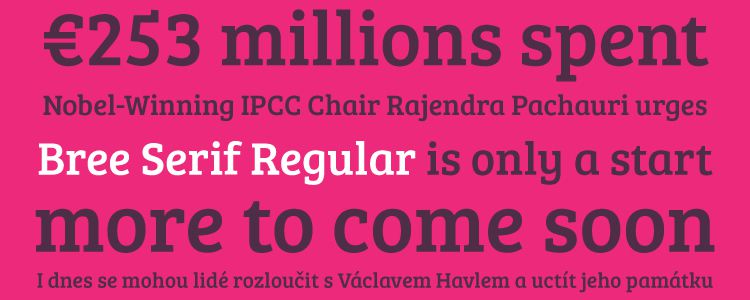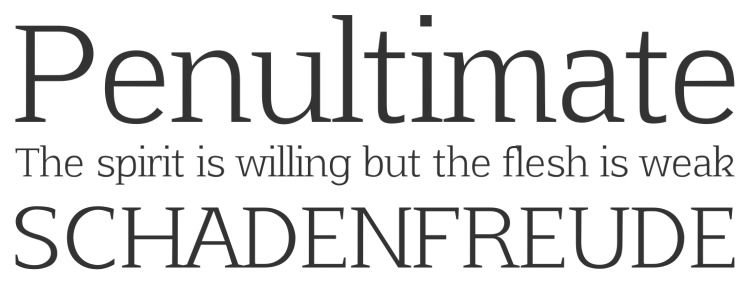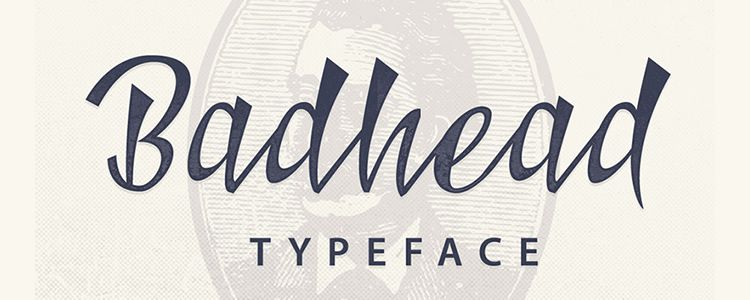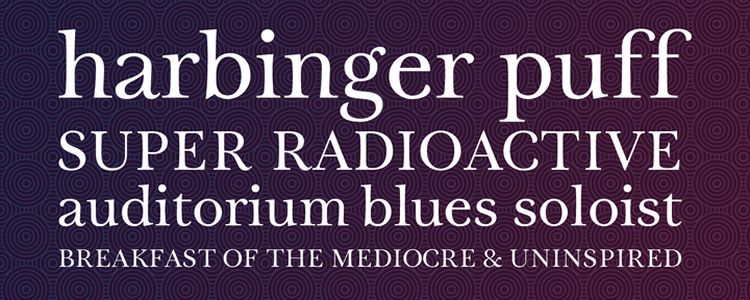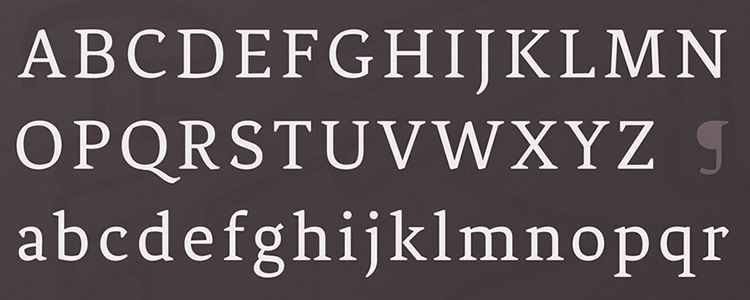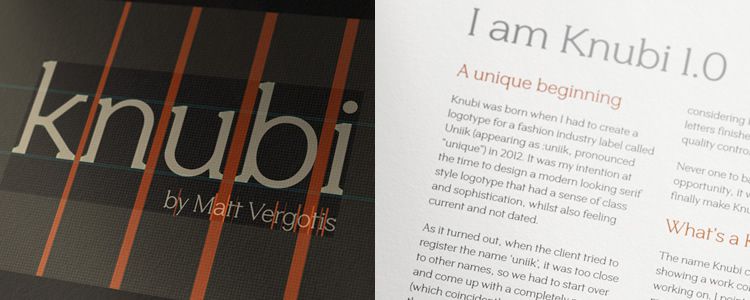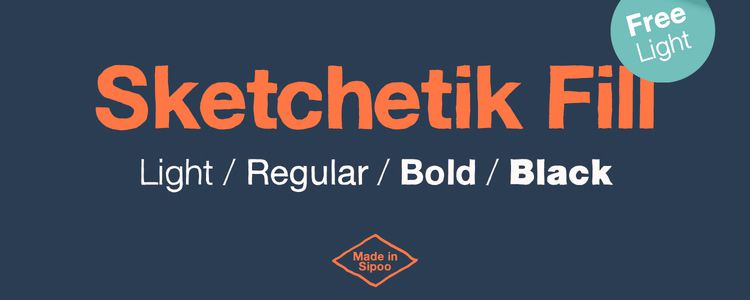
The 100 Best Free Fonts for Designers
Are you struggling to find that particular typeface that matches your creative vision? Then you’ve come to right place! We do know how difficult and time-consuming it can be to find good, high-quality fonts, so we’ve done the searching for you. With over 100 free fonts to choose from, we guarantee that you will find the one, if not the several, you need. These really are the fonts you’ve been looking for!
This collection focuses on those clean and distinctive fonts that will make a professional and highly legible impact on your designs, wether that be on the web or in print. So, there are no overly decorative styles, as we have covered hand-drawn fonts, brush fonts, sci-fi fonts, chunky fonts, gothic fonts, and all those other creative and quirky fonts we all love, before.
Without delving too much into typeface classification and to also help you find that perfect font you’ve been looking for much quicker, we’ve grouped the most popular categories for you: Serif Fonts, Sans Serif Fonts, Slab Serif Fonts and Monospaced Fonts.
Free Serif Fonts
Serifs are defined by the small lines (or decorative features) that trail from the edges of each letter and number. As Serif fonts are considered to be easier to read, they’re typically used in print design as the characters are clearer and more distinctive, making it much easier for our brains to process.
Just like Slab Serifs (see further down), there are always exceptions to the rule. Most Serifs will work perfectly well as a title or headline on the web, and some, as you will see by the selection of free Serif fonts below, will even work beautifully as body text, but please do choose your web typography carefully.
Bitter HT Serif
Bitter HT includes Regular, Italic, Bold and Bold Italic. Designed by Sol Matas.
Arkibal Serif: a modern serif typeface created by Jan-Christian Bruun Arkibal is a typeface with 6 styles. Designed by Jan-Christian Bruun
PT Serif
PT Serif includes Regular, Italic, Bold and Bold Italic variants. Created by ParaType.
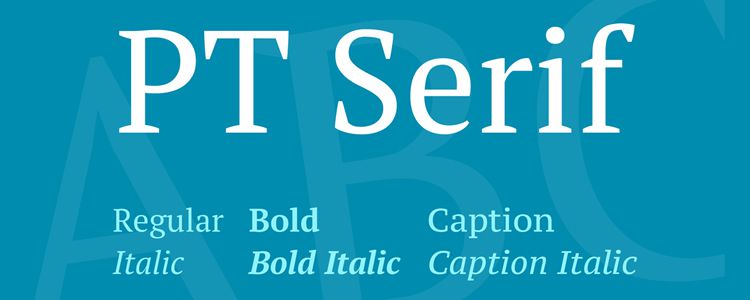
Ayres Serif
Ayres Serif includes ligatures and alternate glyphs. Created by Mariel Gornati.
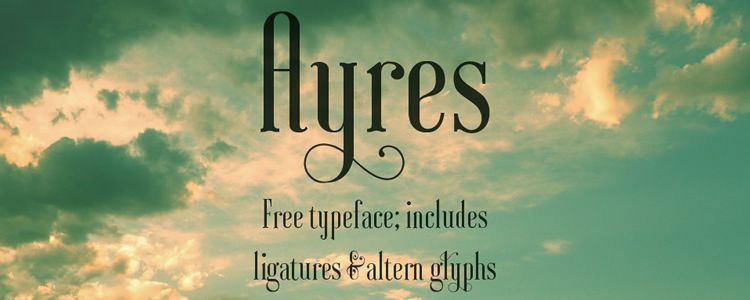
Calendas Plus Serif Font Family
Calendas Plus Regular includes both desktop and webfonts variants. Designed by Altipo Fonts.
SilverLeaf Handwritten Serif
SilverLeaf is a handwritten Serif font that includes both desktop and webfont variants. Created by Nathan Brown.
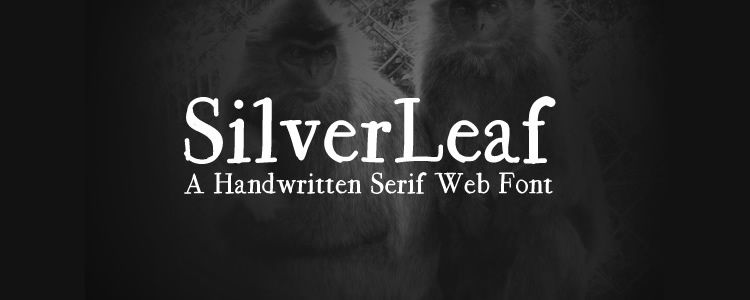
YoungSerif Medium Typeface
YoungSerif Medium includes both webfont and desktop versions. Created by Uplaod.
Droid Serif
Droid Serif includes Regular, Bold, Bold Italic and Italic variants. Created by Steve Matteson.
One of the most well-kerned hand written scripts on the list. Both TTF , WOFF & OTF Formats are included.
Jura Serif Typeface
Jura Serif includes Regular, Italic, Bold and, Bold Italic variants. Created by Ten by Twenty.
Merriweather Serif
Merriweather includes Regular, Light, Bold, Itlalic and Black variants. Designed by Eben Sorkin.